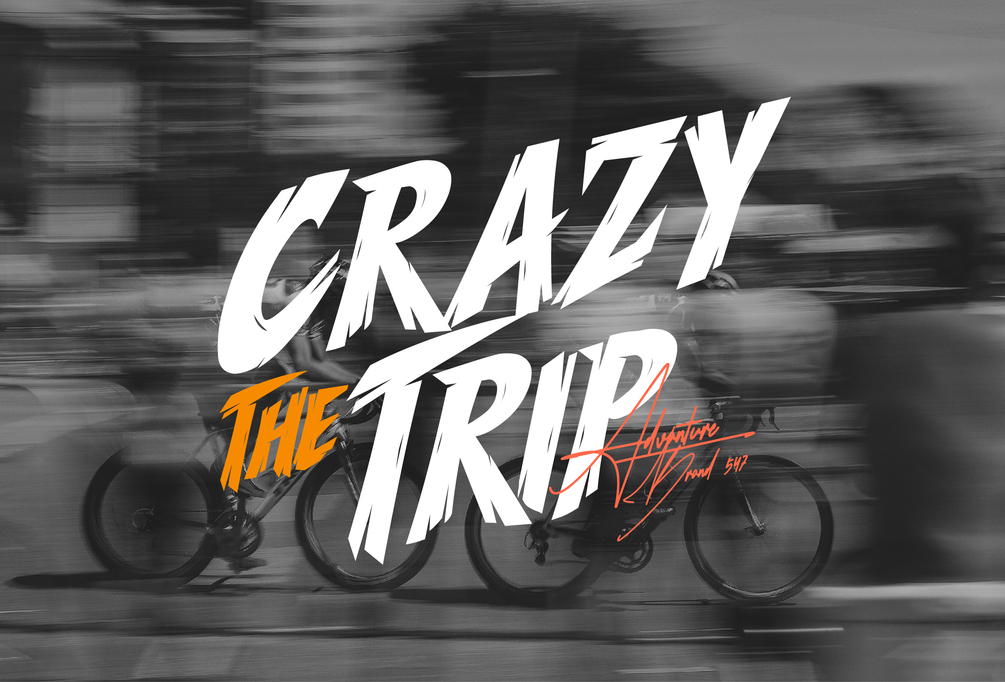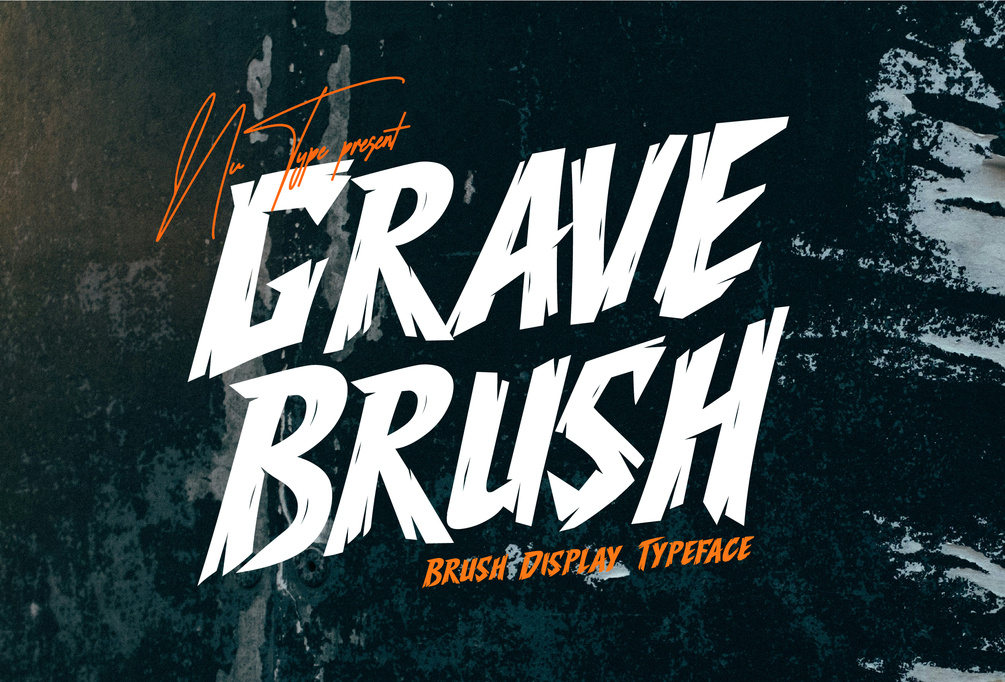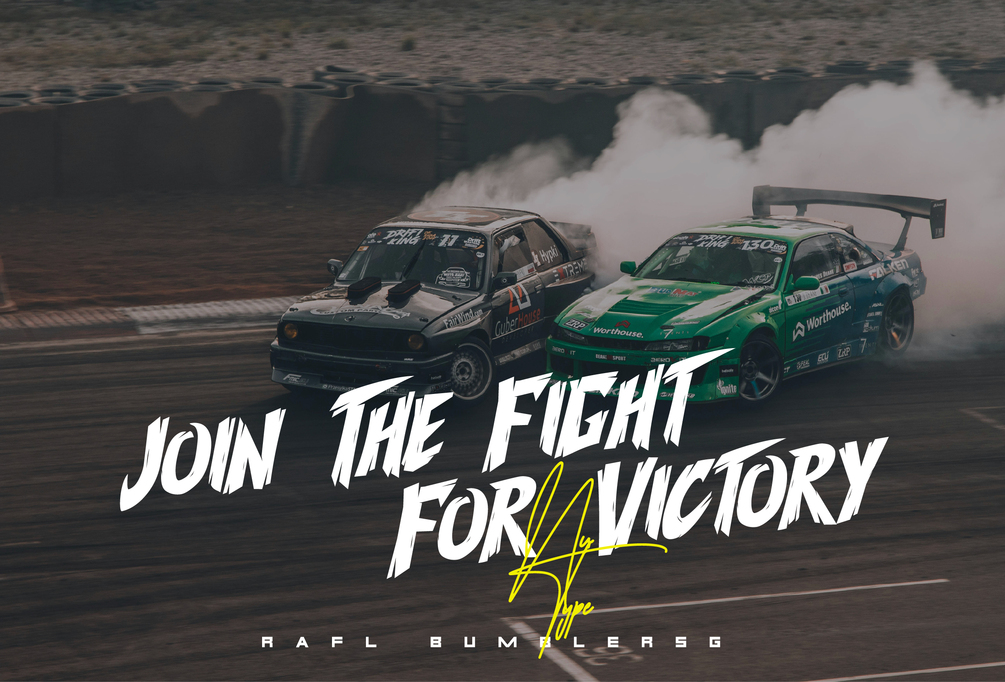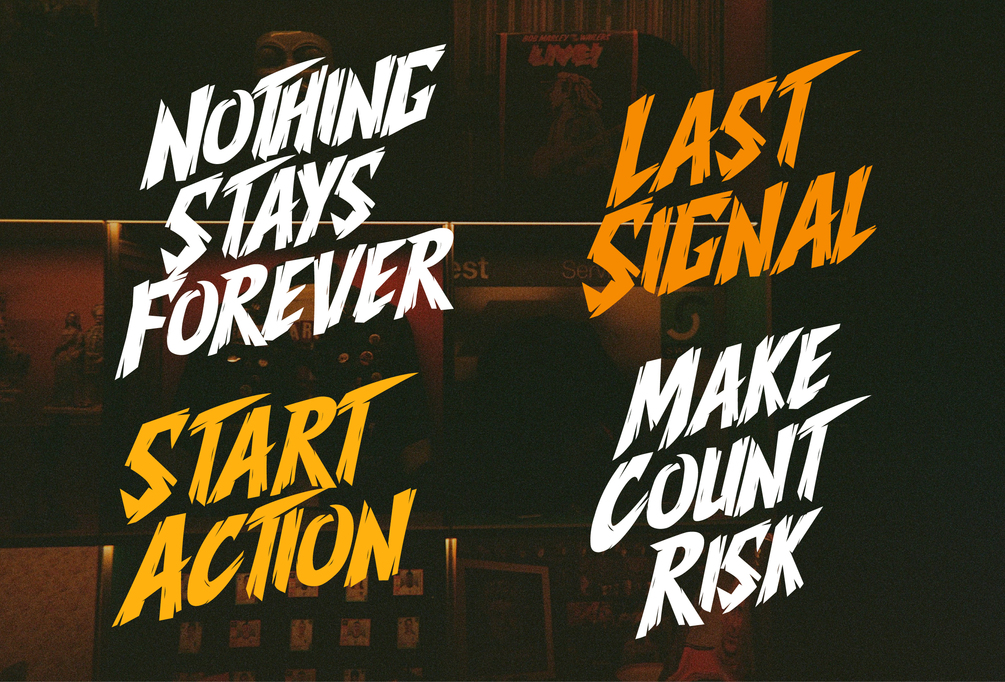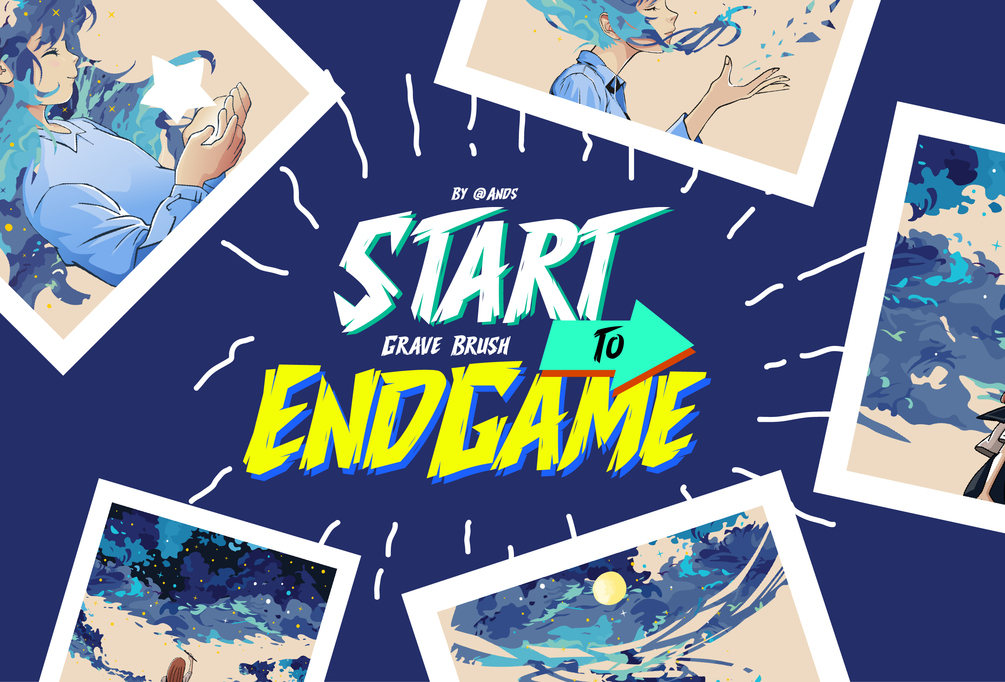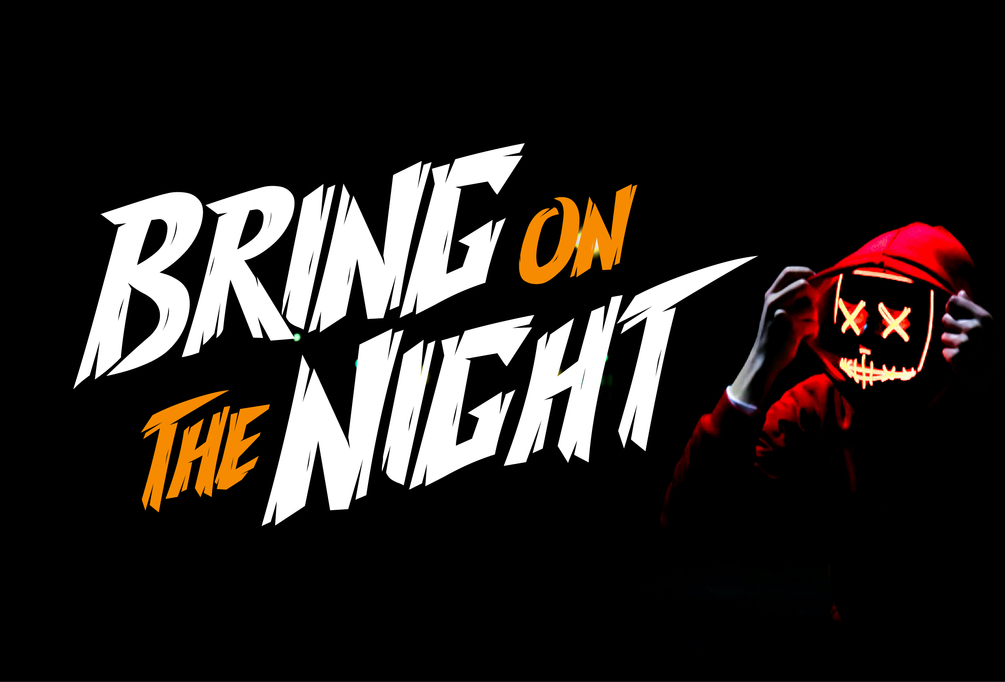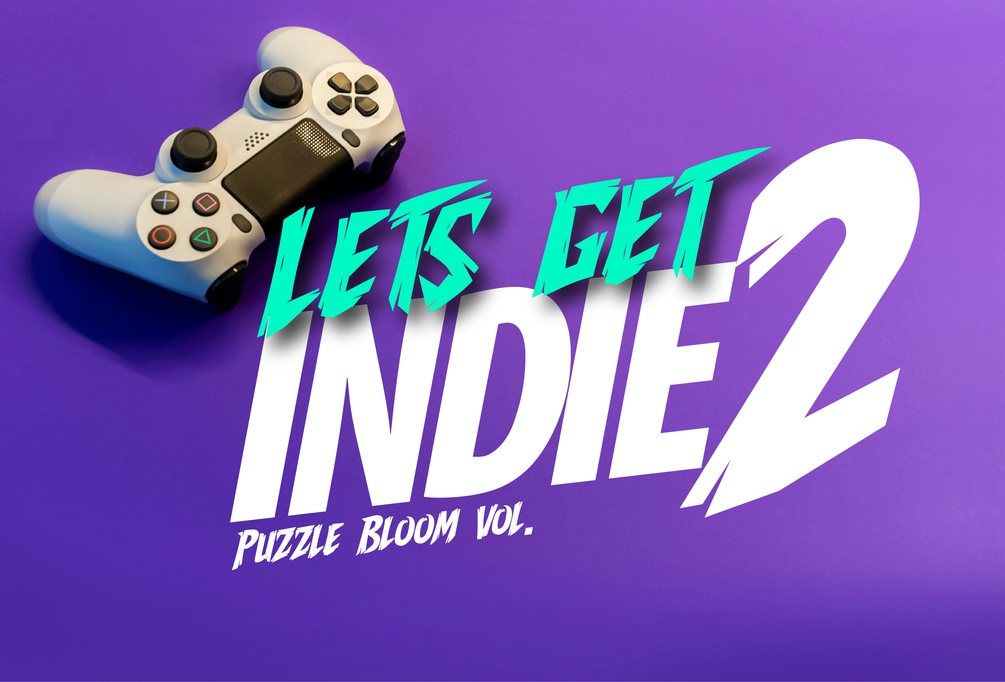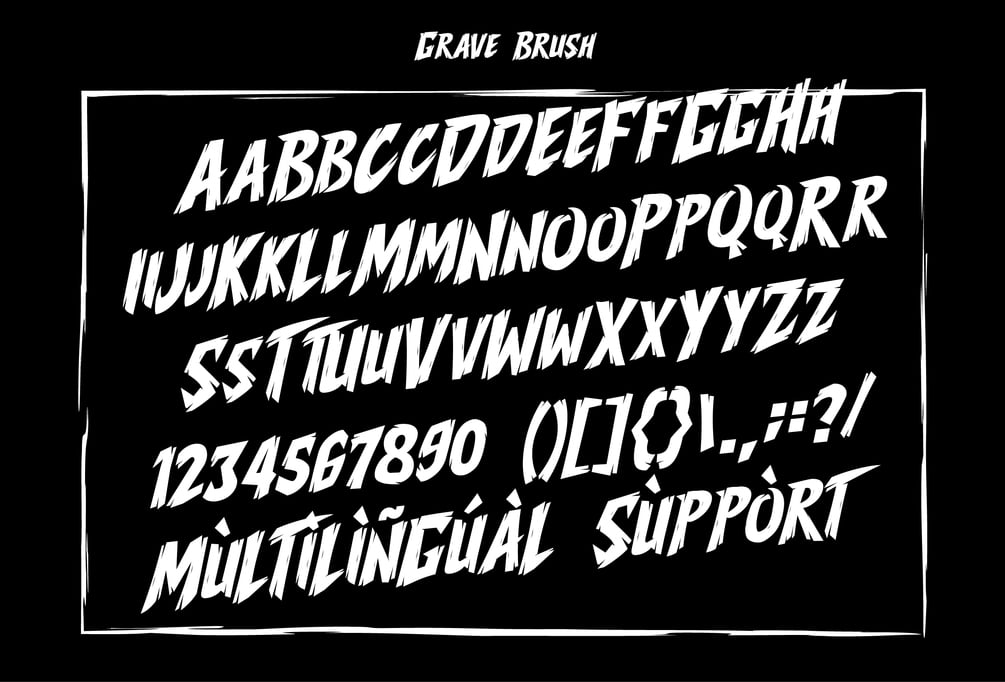
Grave - Display Brush Font
Grave Brush is a brush-style display typeface designed with a bold, sharp character and full of wild energy. Every curve and stroke of this letter creates an intense and dramatic atmosphere, making it an ideal choice for design projects that require an expressive and striking look.
With a rough structure but still clearly legible, Grave Brush is perfect for use in horror movie posters, metal / punk music covers, streetwear designs, to dark or alternative themed branding. Dynamic brush strokes and aggressive letterforms give a strong sense of movement and visual tension.
Features:
• Lowercase
• Uppercase
• Basic numbers and symbols
• Brush style inspired by real hand strokes
Grave Brush not only offers a strong visual appearance, but also gives personality and artistic character to each letter. Perfect for use in creative projects that demand visual boldness.